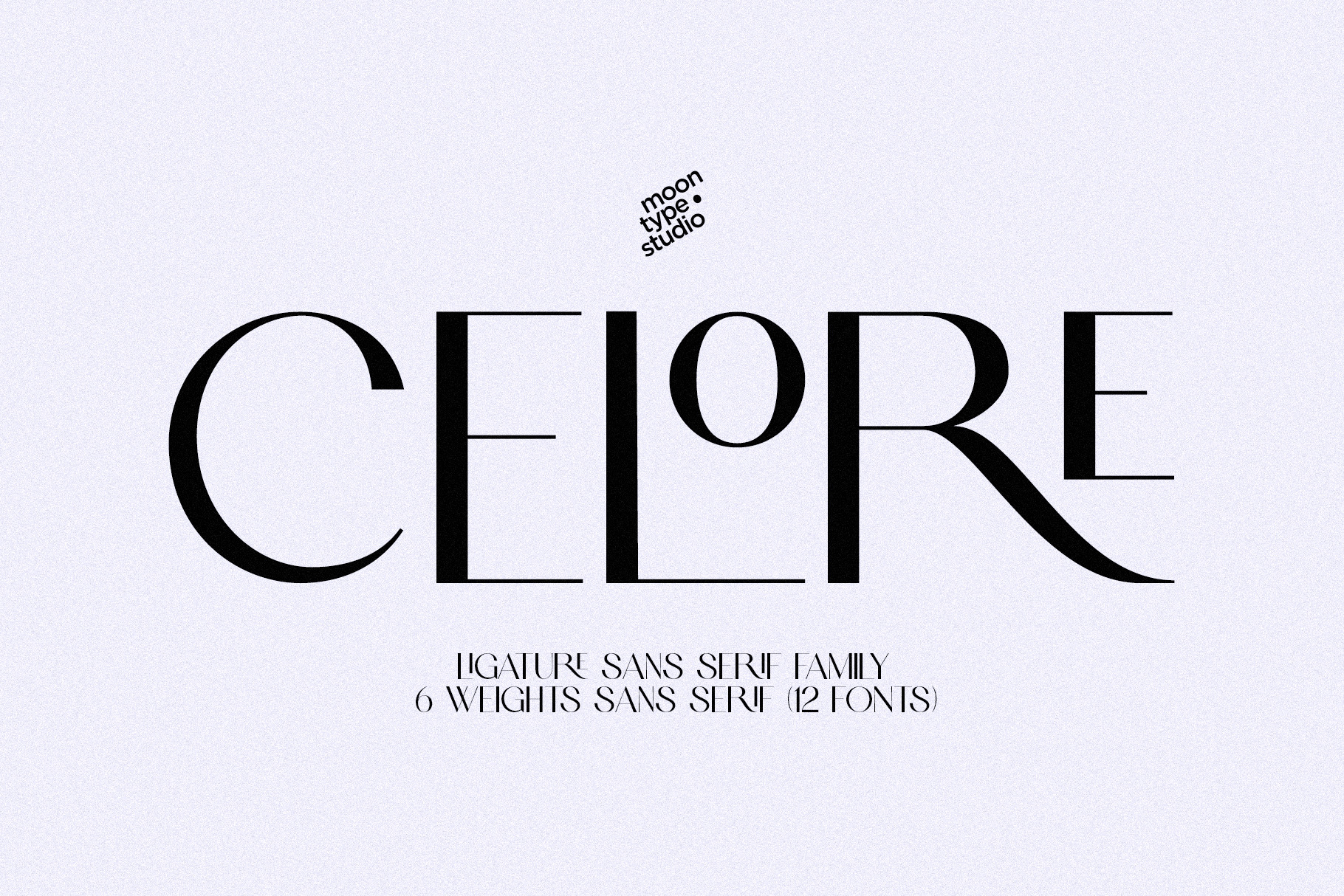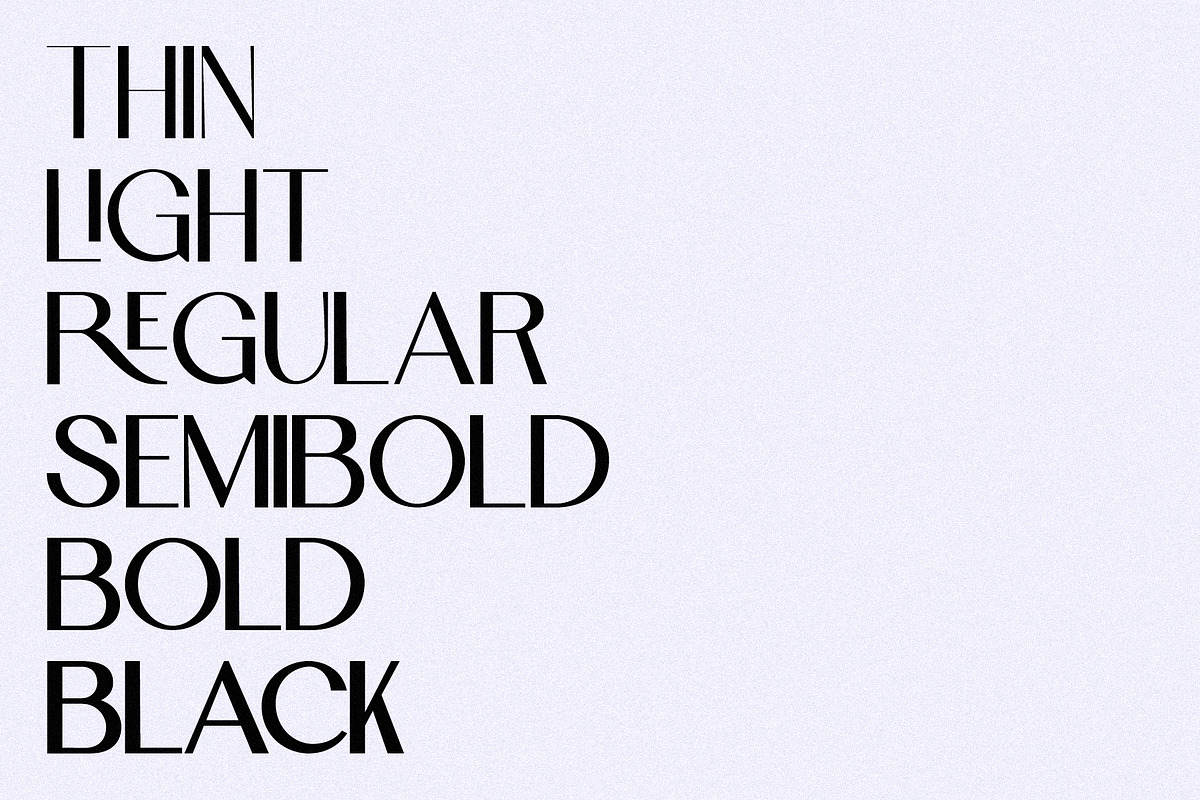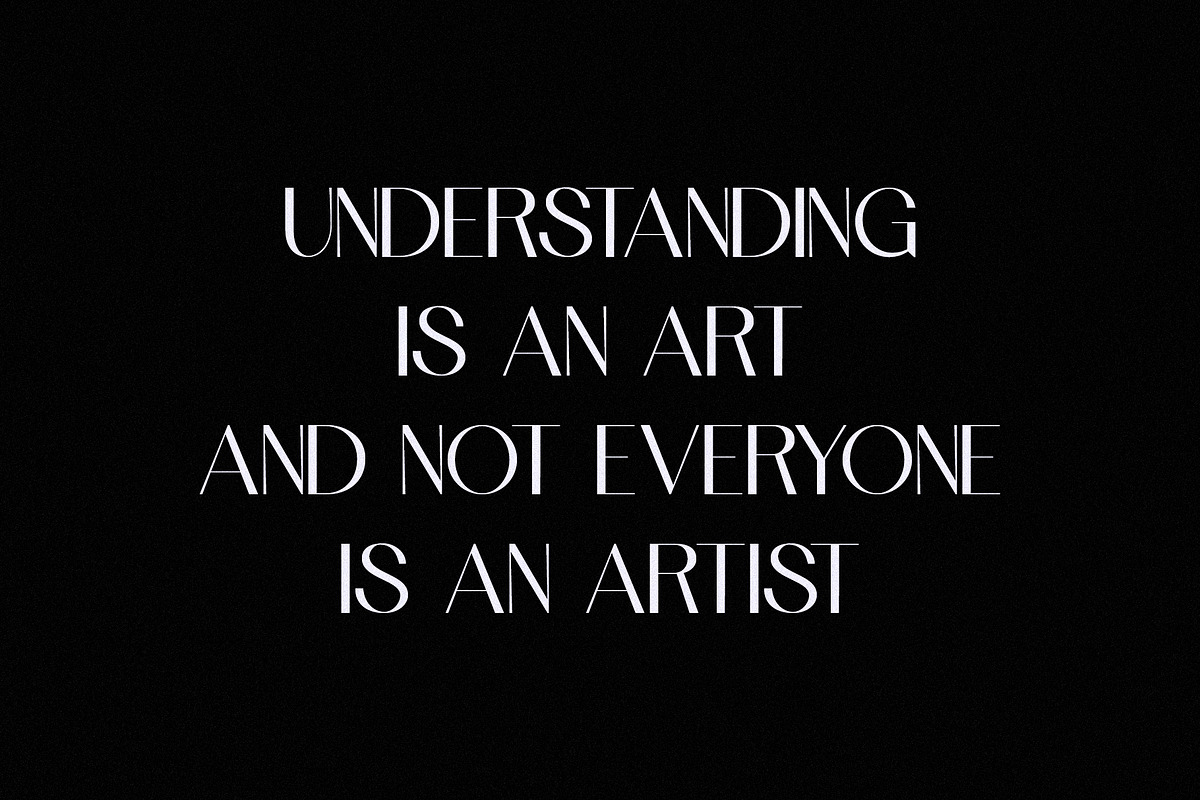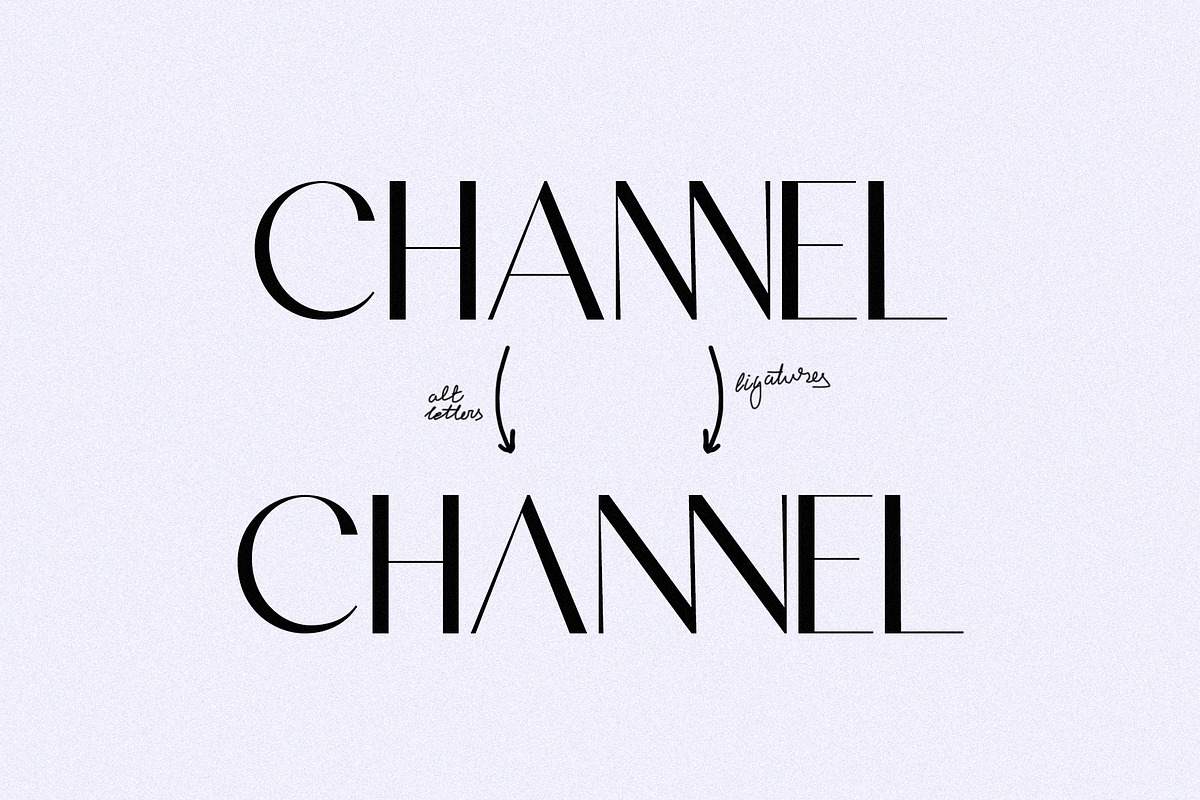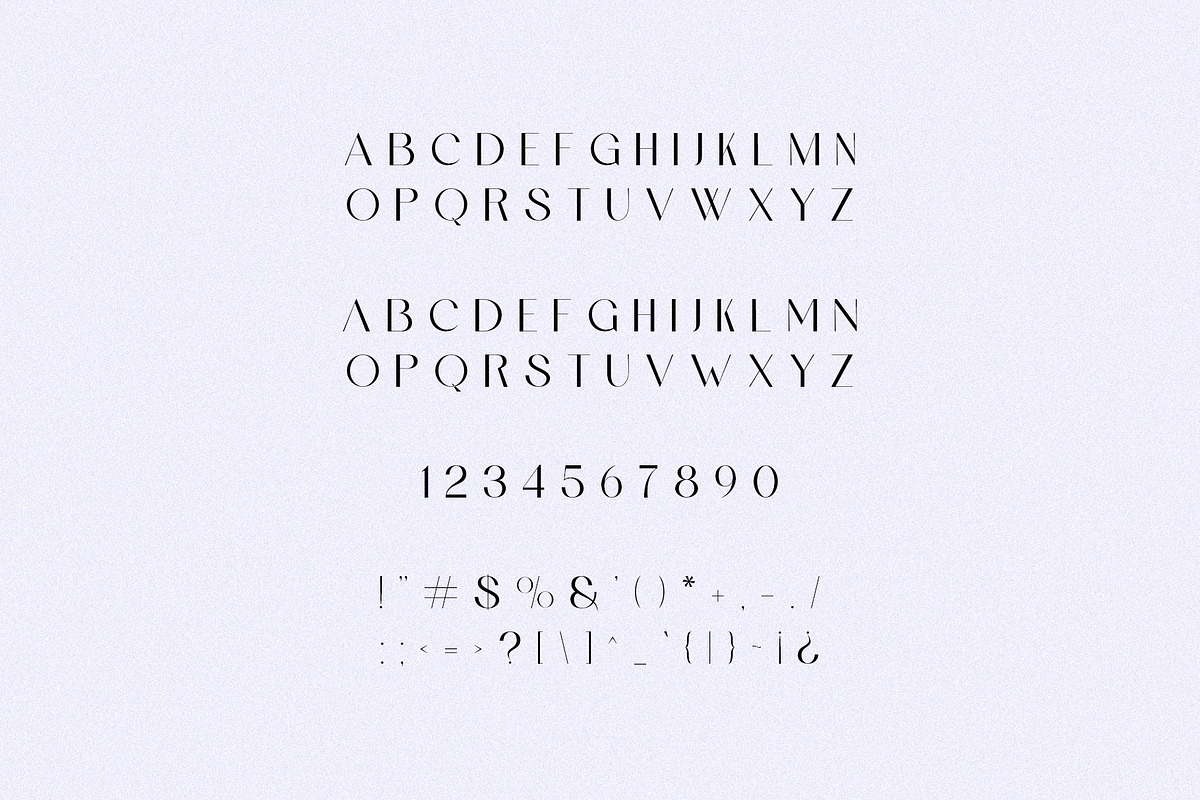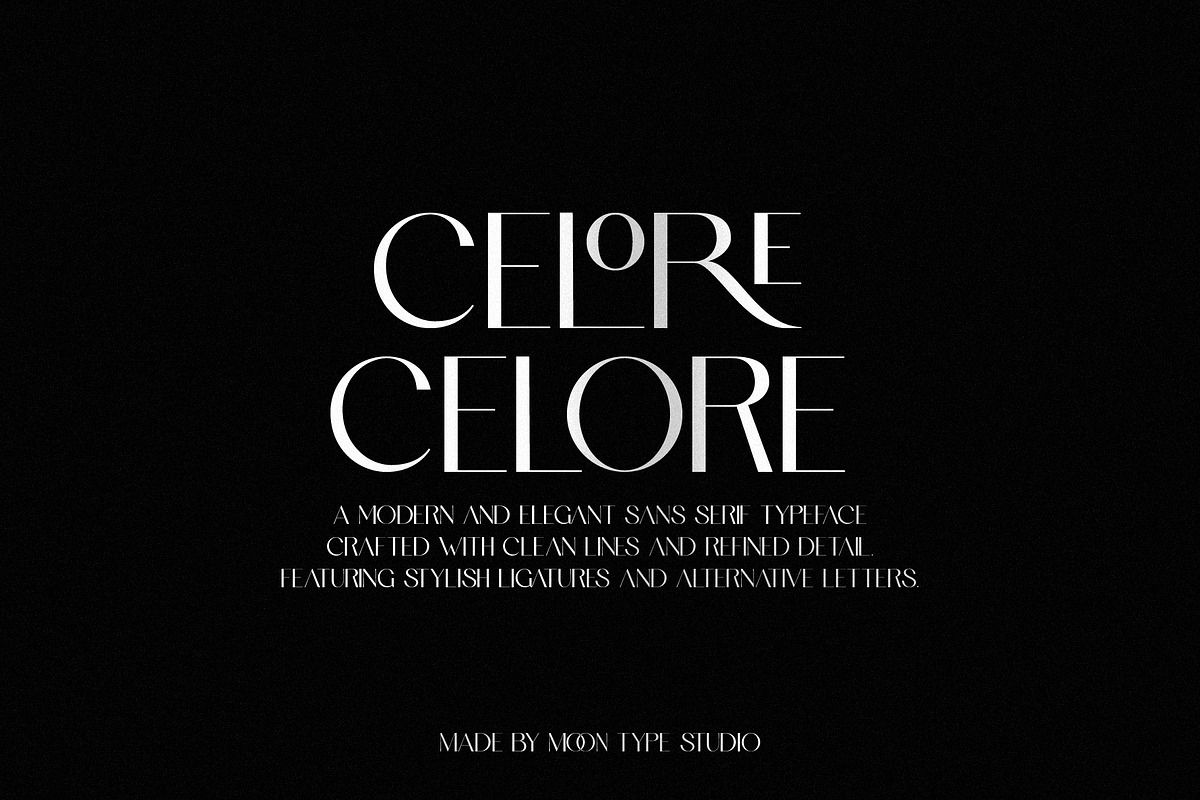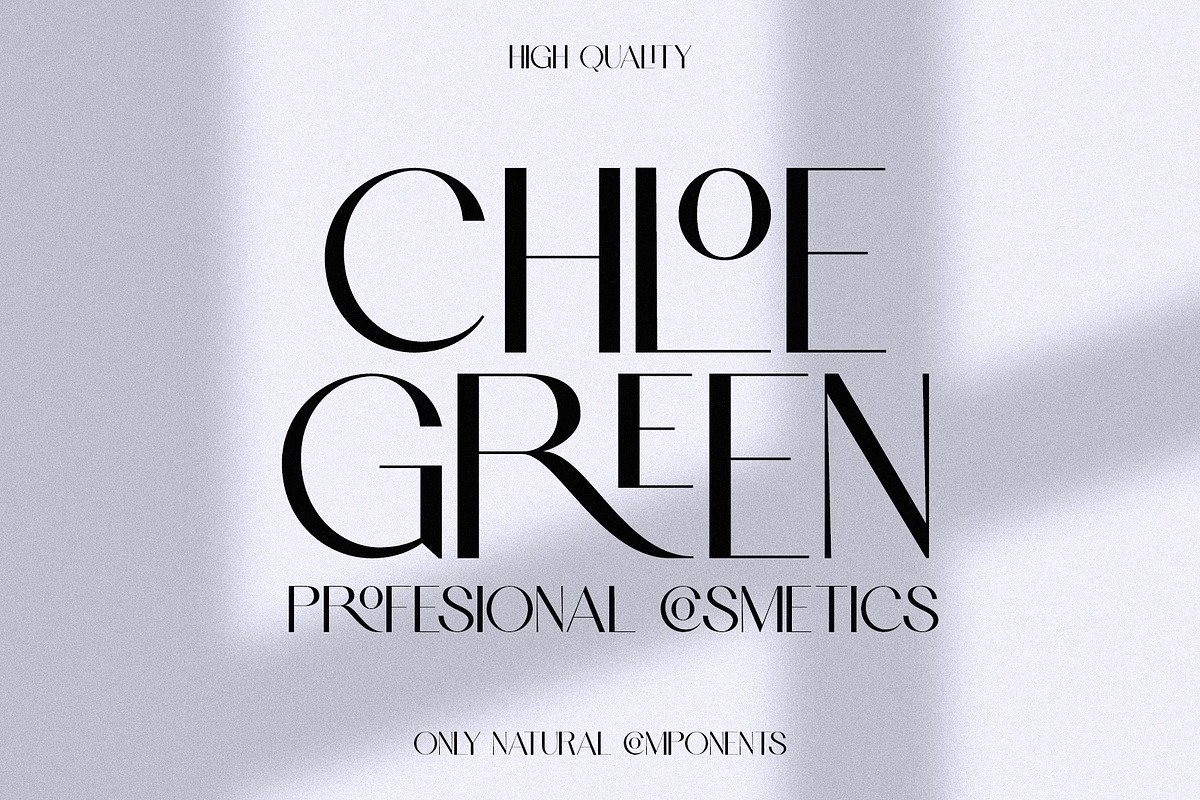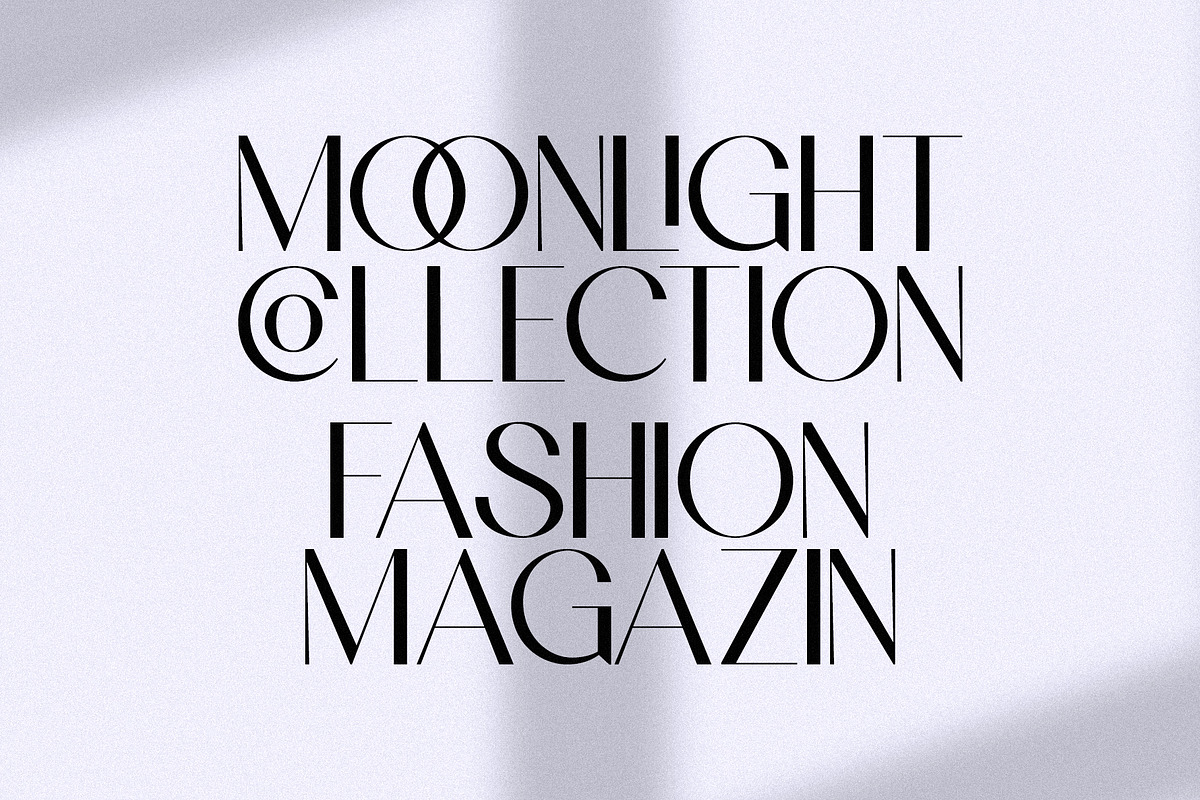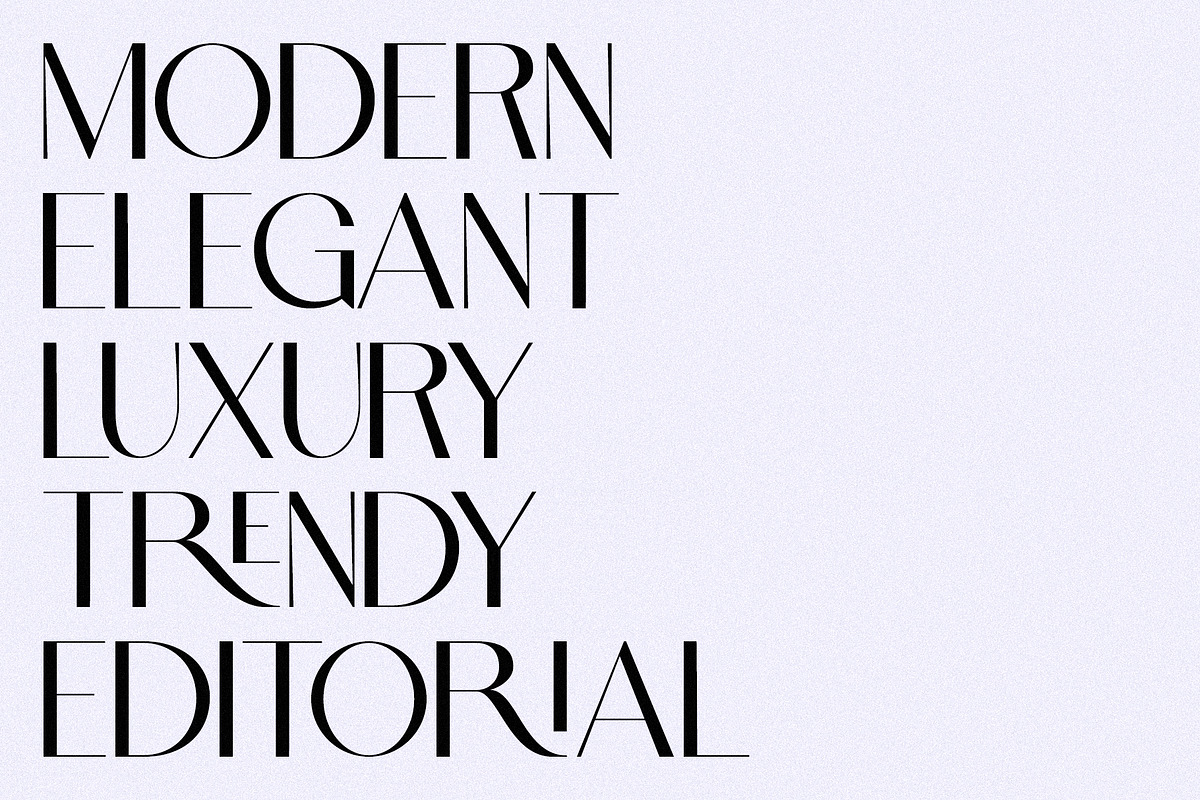
Celore Family (12 Fonts)
Celore Family expands the refined elegance of Celore into a complete and versatile type system. Blending modern minimalism with timeless sophistication, it delivers a clean, confident presence across a wide range of design applications. The family includes Thin, Light, Regular, Semibold, Bold, and Black weights, each with matching Italics, giving designers the freedom to create everything from delicate, airy compositions to bold, impactful statements. Signature ligatures and alternative characters add a distinctive touch, making Celore ideal for luxury branding, editorial design, logos, packaging, and digital layouts. With harmonious proportions and smooth curves across every style, Celore offers a polished, modern typographic voice that remains effortlessly refined.